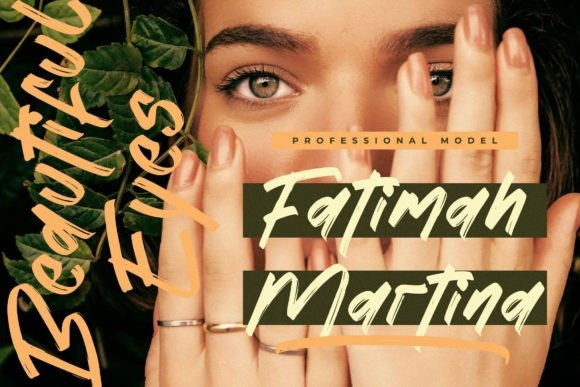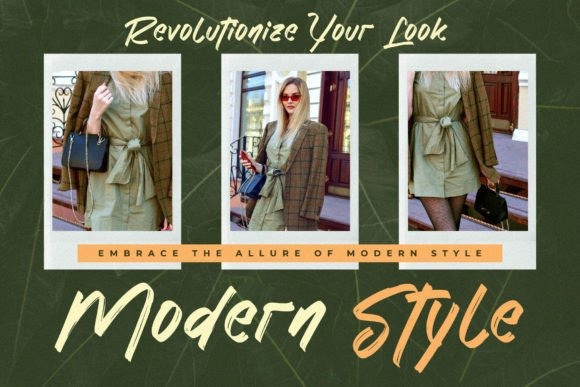
Crystal Levingston Font
Crystal Levingston Font is a stylish and incredibly elegant script font. It looks stunning on wedding invitations, thank you cards, quotes, greeting cards, logos, business cards and every other design which needs a handwritten touch.